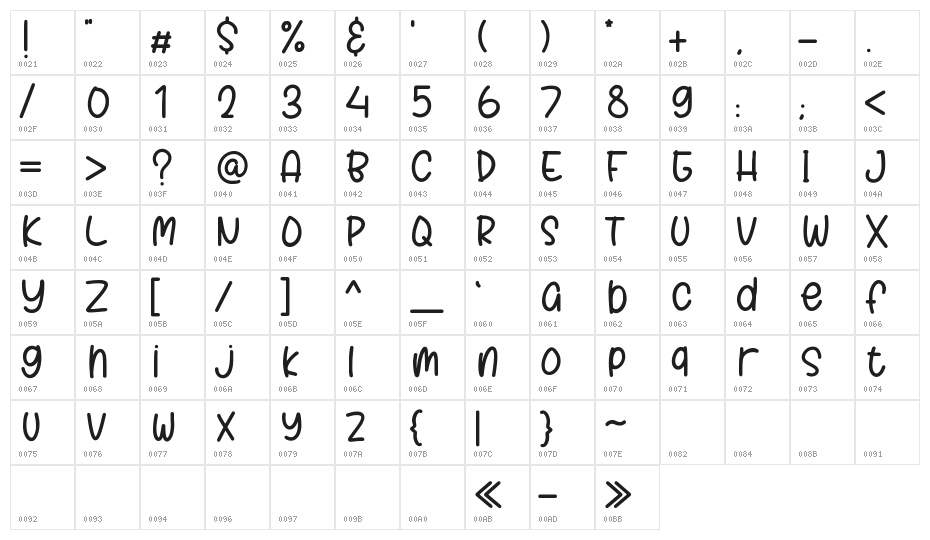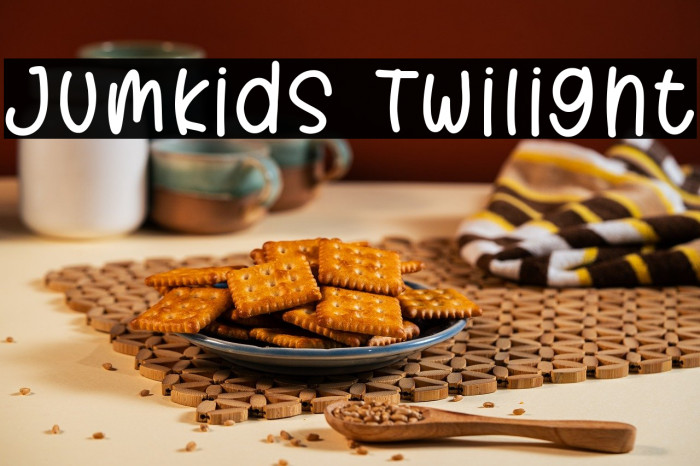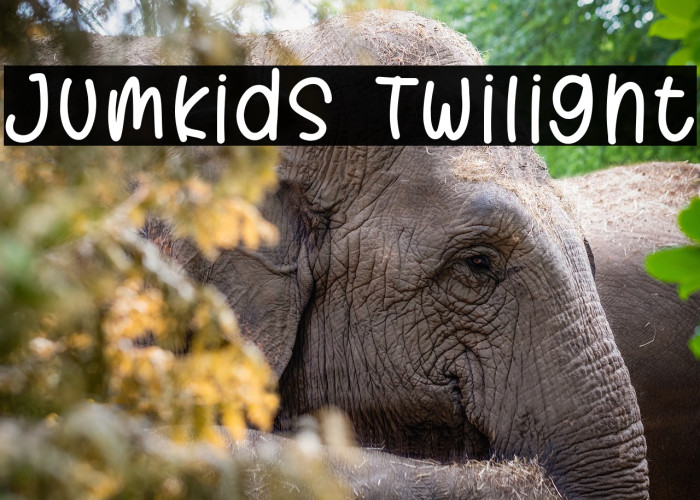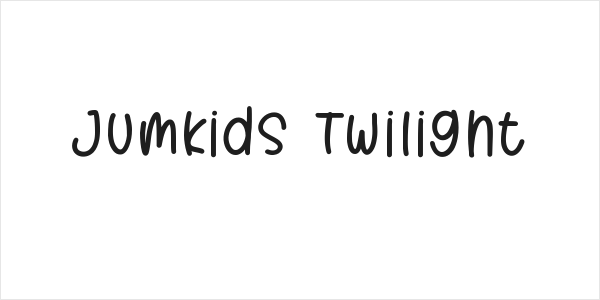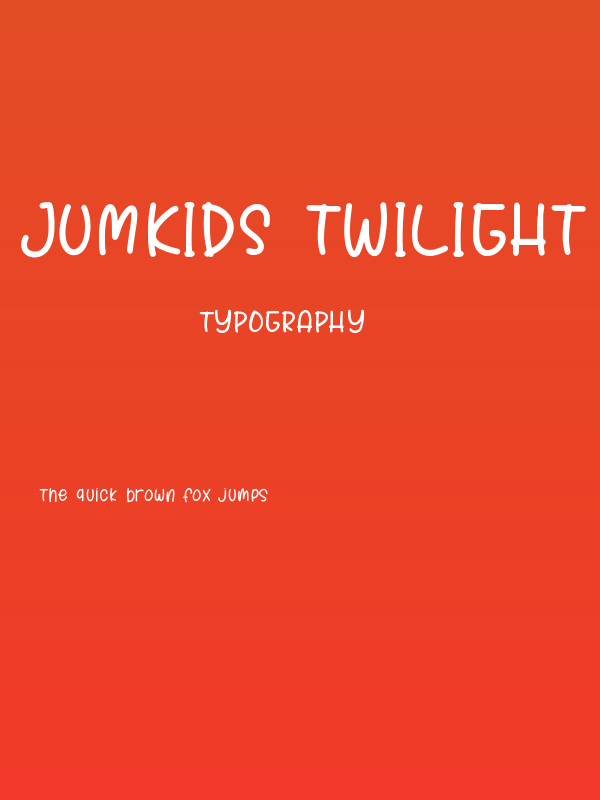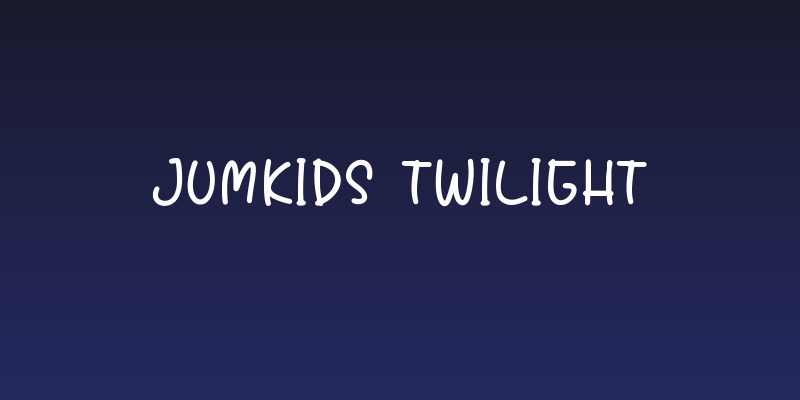
Jumkids Twilight Font
Jumkids Twilight Description
This playful and whimsical font features rounded, hand-drawn characters that exude a friendly and approachable vibe. The letters are slightly irregular, adding to its charm and making it ideal for casual and fun designs. The uppercase and lowercase letters maintain a consistent style, while the numerals and special characters complement the overall look. The font's informal style makes it suitable for children's books, playful branding, and creative projects.
| Proposed Projects | Ideal for children's books, playful branding, greeting cards, and creative projects. |